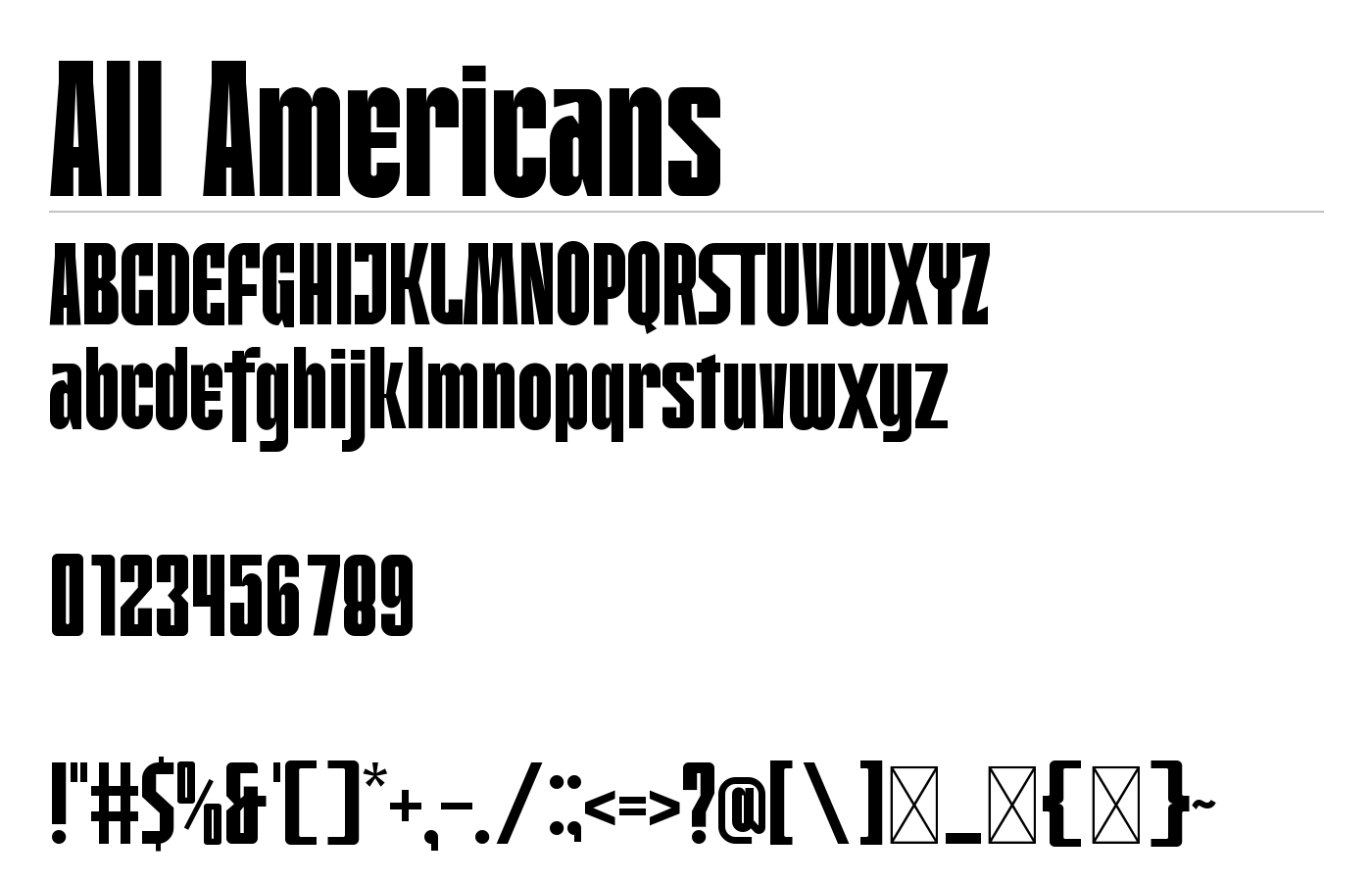
All Americans Font is a bold, condensed sans serif typeface with a strong, modern presence. Its tall, narrow letterforms and uniform stroke weight create a commanding and impactful look, perfect for headlines and display use where attention and clarity are key. This font’s sturdy, no-nonsense style suits sports branding, posters, and editorial designs that aim to communicate strength and confidence.
All Americans Font
About All Americans Font
| Font family | All Americans Font |
| Designer | Muhammad Afif Ersya |
| Trademark | Lettercorner Studio |